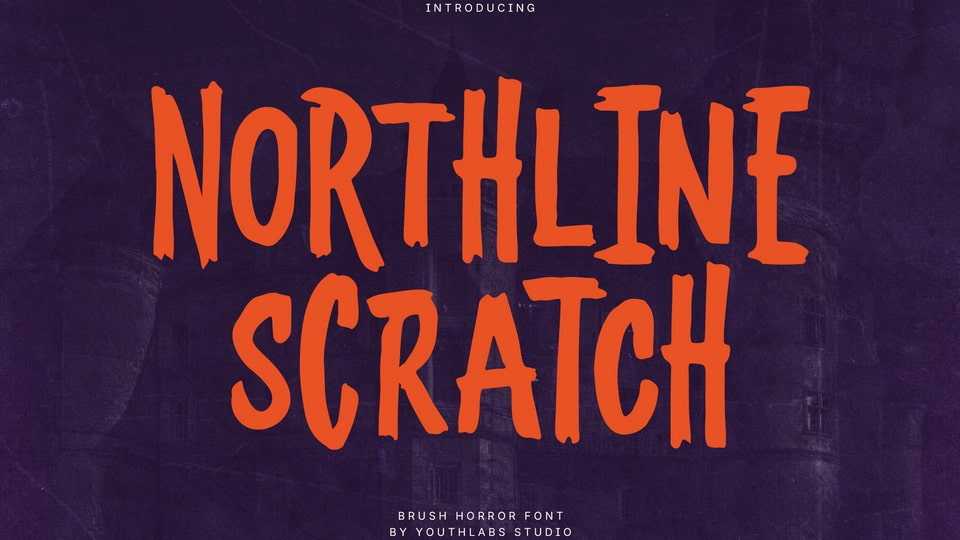
Download Northline Scratch font, a raw brush horror typeface inspired by scratched textures, hand-painted strokes, and dark cinematic atmospheres.
Designer: Youthlabs Studio